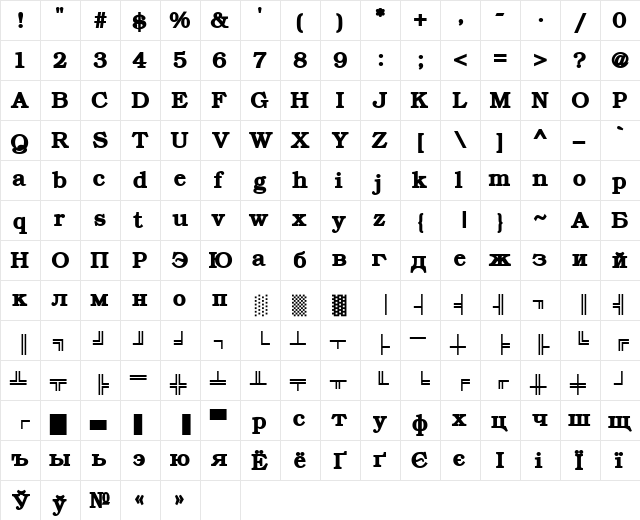
ER Bukinist 866 Bold
Design Context for ER Bukinist 866 Typeface
ER Bukinist 866 is a composed and adaptable typeface that performs quietly and consistently across a wide range of design contexts. Its bold stroke weight gives it real presence on the page.